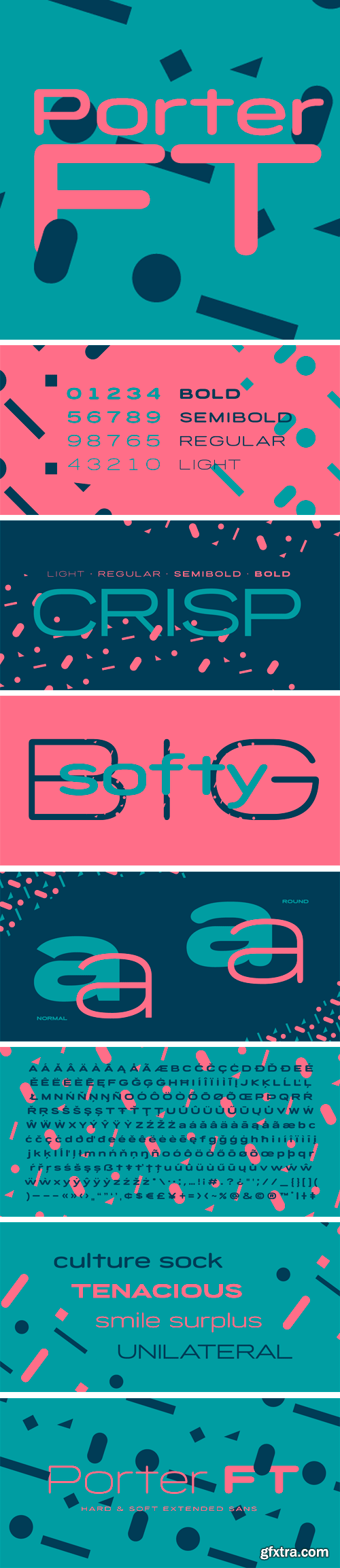
Porter FT is a completely remade version of my old typeface Porter Sans. With added lowercase characters and four weights in both normal and round styles, this new creation is a versatile extended display face.